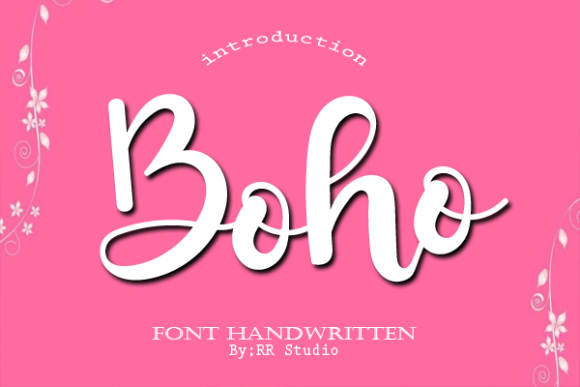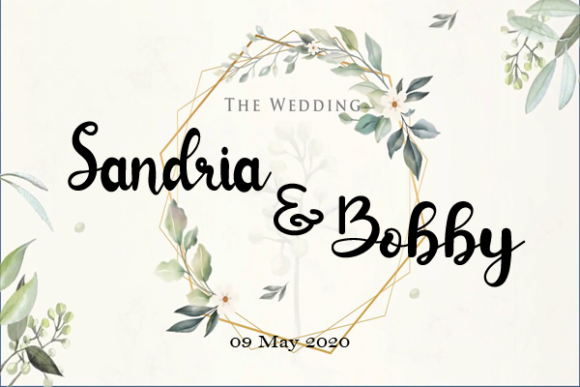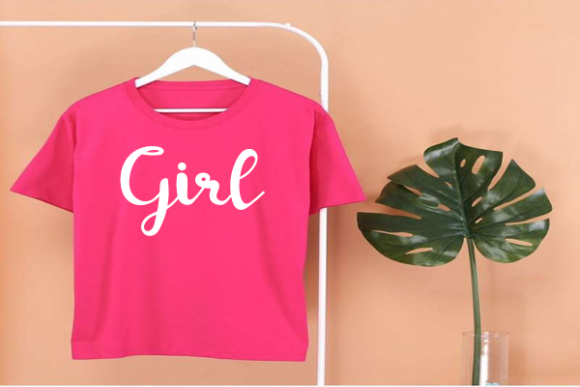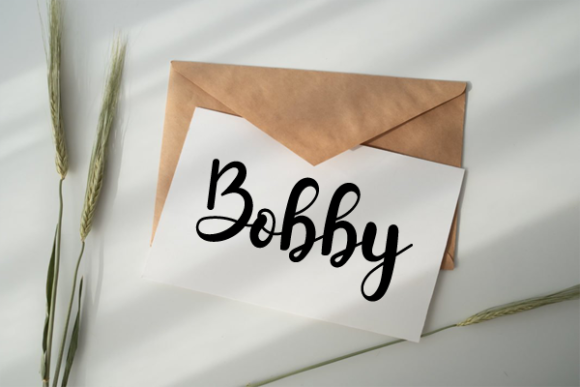
About Boho Font
“Boho” presents itself as a delightful cursive handwritten font, imbued with sweetness and charm. Its inherent gentleness lends itself beautifully to a diverse array of design concepts. With its application, it has the power to bestow a sense of joy and romance, elevating the overall appeal of any project it graces.
The graceful curves and fluid strokes of “Boho” contribute an element of elegance to a multitude of design possibilities. Be it wedding invitations, heartfelt letters, inspiring quotes, branding materials, or any creative endeavor seeking an intimate touch, this font effortlessly imparts a tender and whimsical essence that captures attention and evokes positive emotions.
The true versatility of “Boho” lies not only in its visual aesthetics but also in its adaptability across different contexts. Its cursive nature brings forth a human touch and warmth, reminiscent of handwritten notes exchanged between kindred spirits. By incorporating “Boho” into your designs, you infuse an air of tenderness and affection, creating an enduring impression that resonates deeply with viewers on a personal level. Whether used for digital or print, “Boho” adds an irreplaceable touch of joyful romance to each of your creative endeavors.